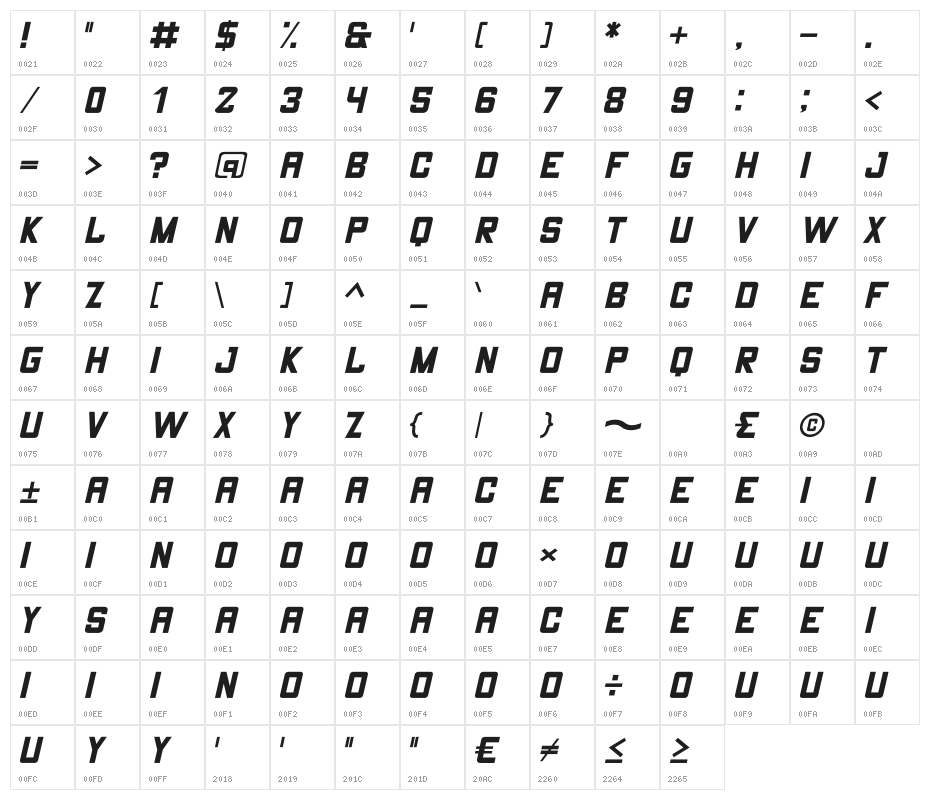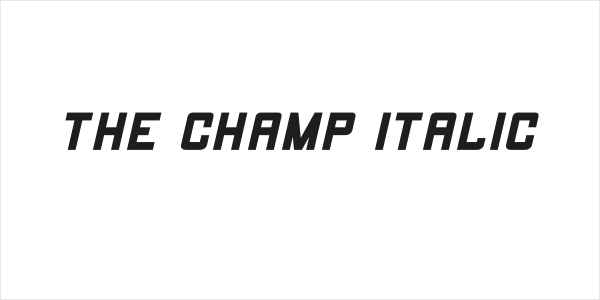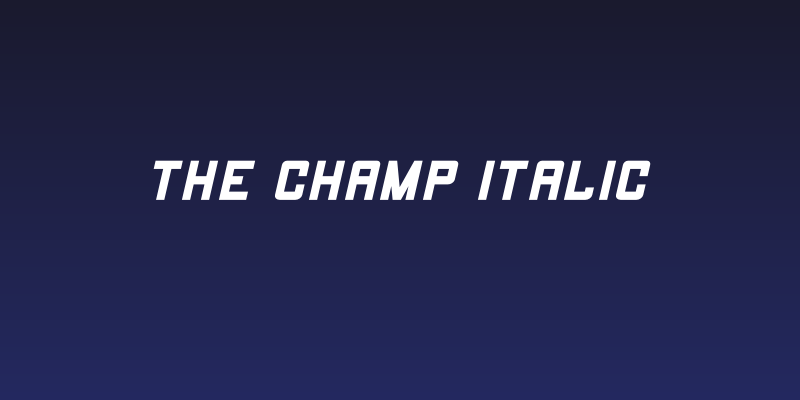
THE CHAMP Italic Font
THE CHAMP Italic Description
This font features a bold and dynamic italic style, characterized by its strong geometric shapes and slightly condensed letterforms. The slanted design adds a sense of motion and energy, making it ideal for projects that require a modern and impactful look. The uppercase letters are particularly striking, with sharp angles and clean lines that convey a sense of strength and confidence. The numerals and special characters maintain the same bold aesthetic, ensuring consistency across all text elements. This font is well-suited for use in sports branding, posters, and any design that aims to capture attention with its assertive presence.
| Proposed Projects | Ideal for sports branding, dynamic posters, and attention-grabbing headlines. |